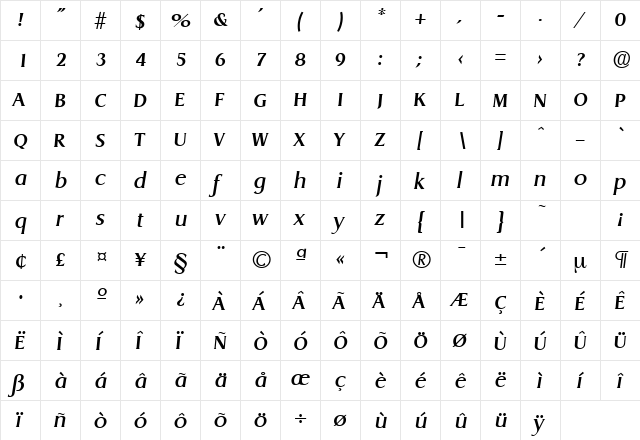
Dragon-Serial-Medium RegularItalic
Dragon-Serial-Medium offers clean, dependable letterforms without strong stylistic allegiance, making it a practical choice for designers who need flexibility. The slanted form adds forward momentum and visual energy.
Pro Tip: Use Dragon-Serial-Medium for emphasis, pull quotes, and subheadings where its slanted energy can add rhythm to the layout.